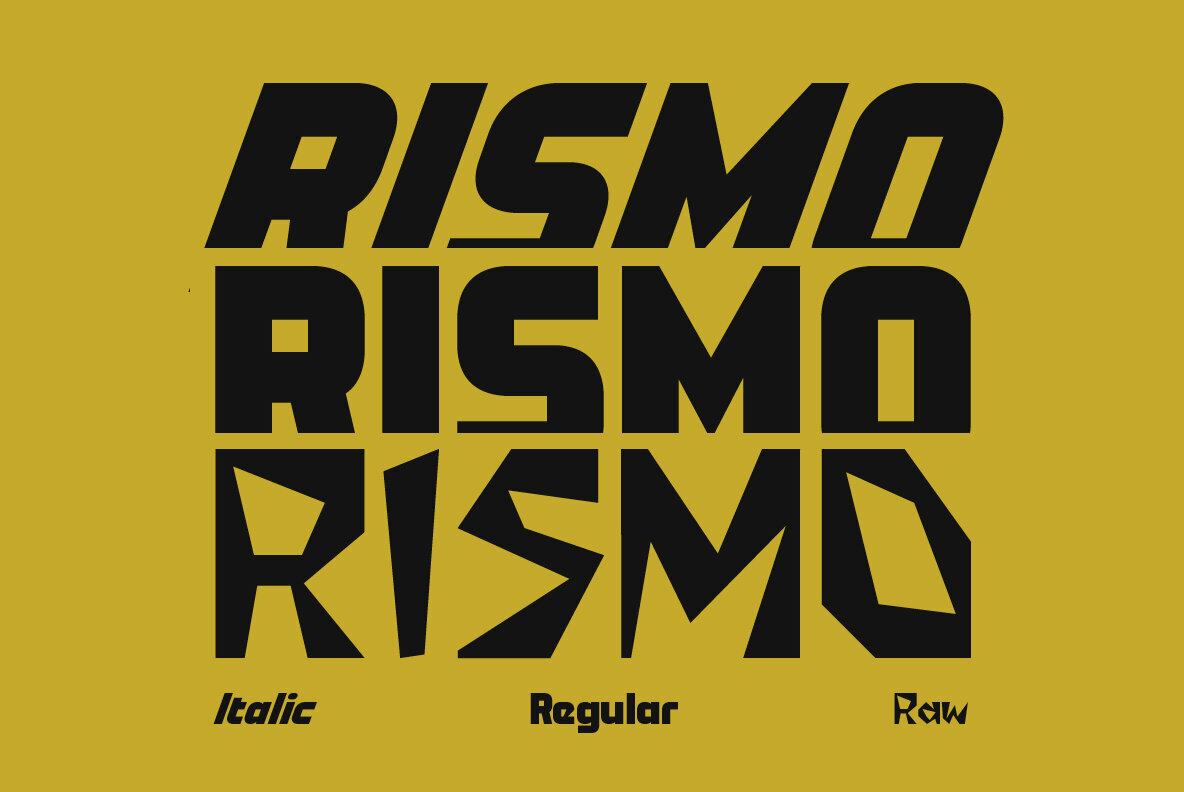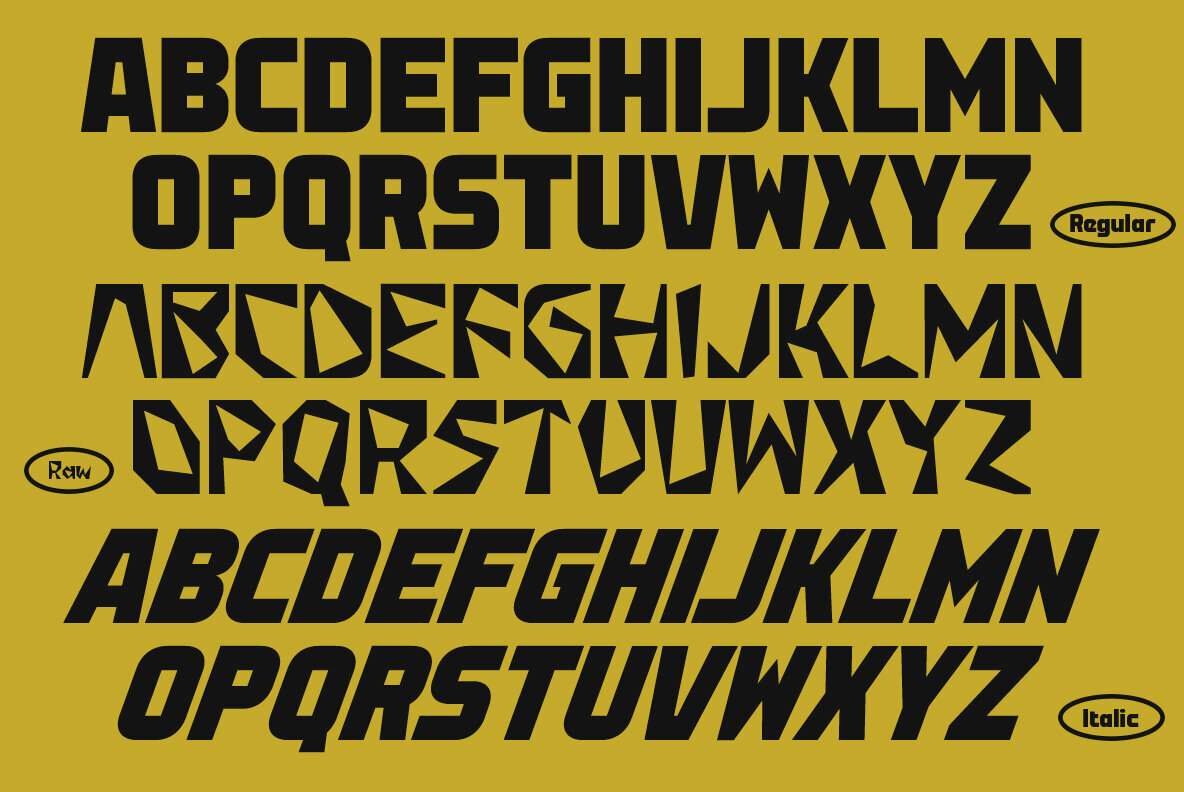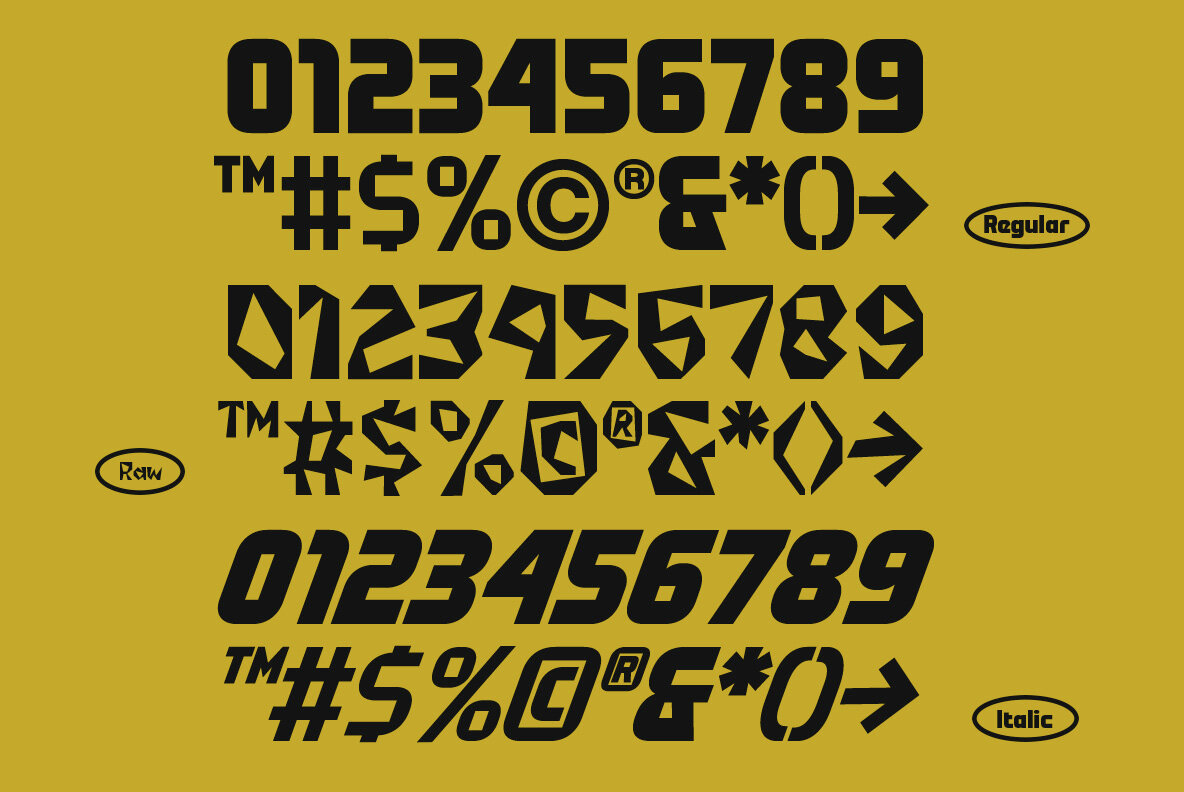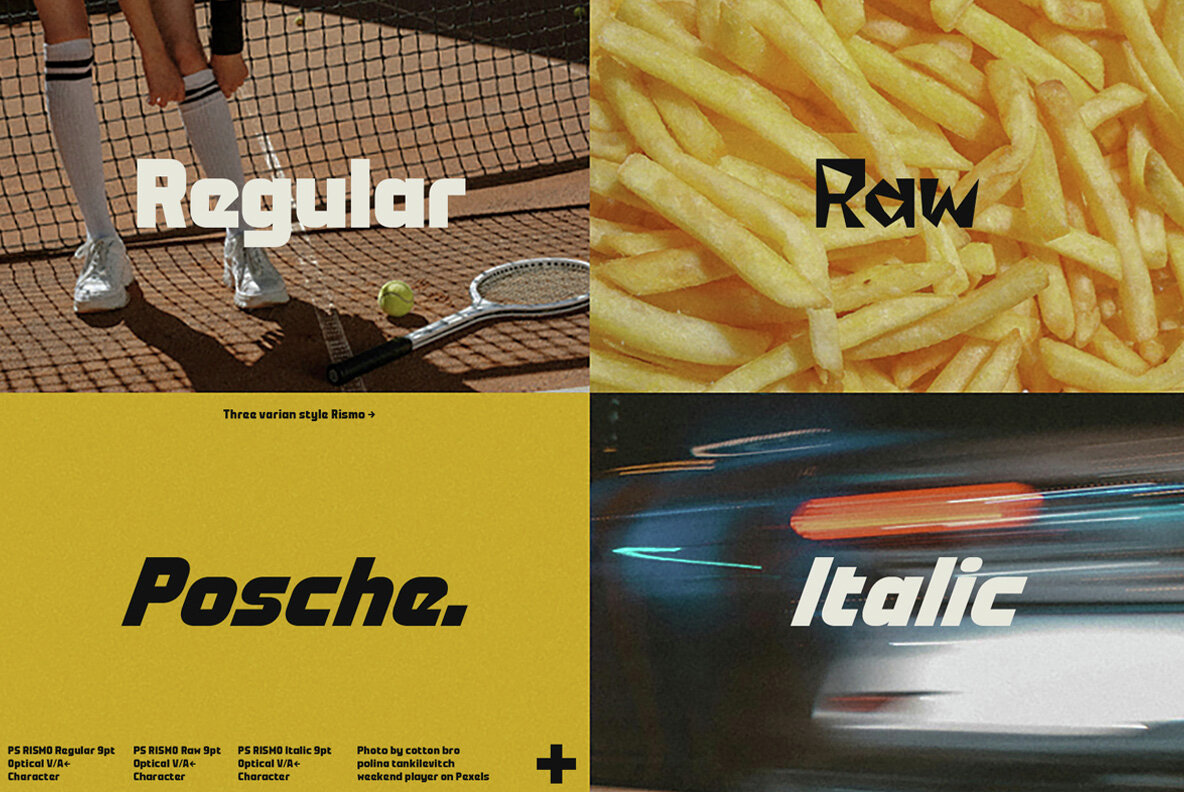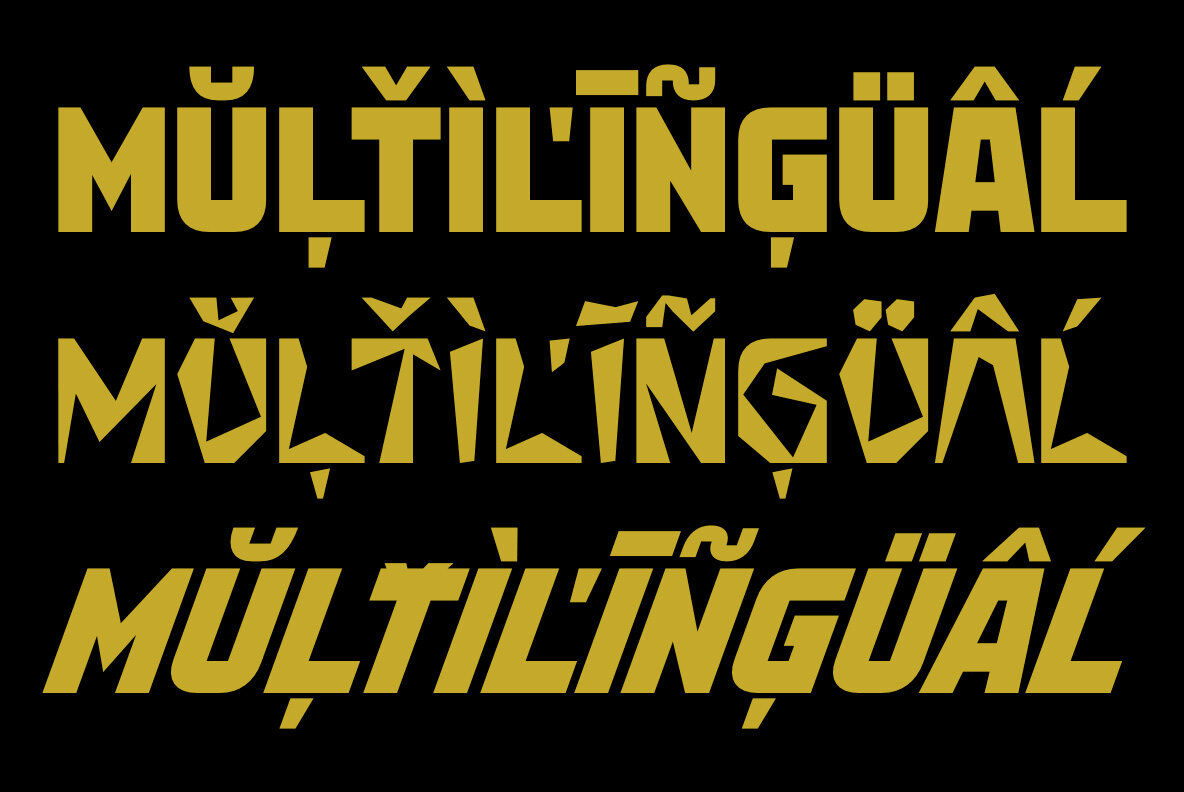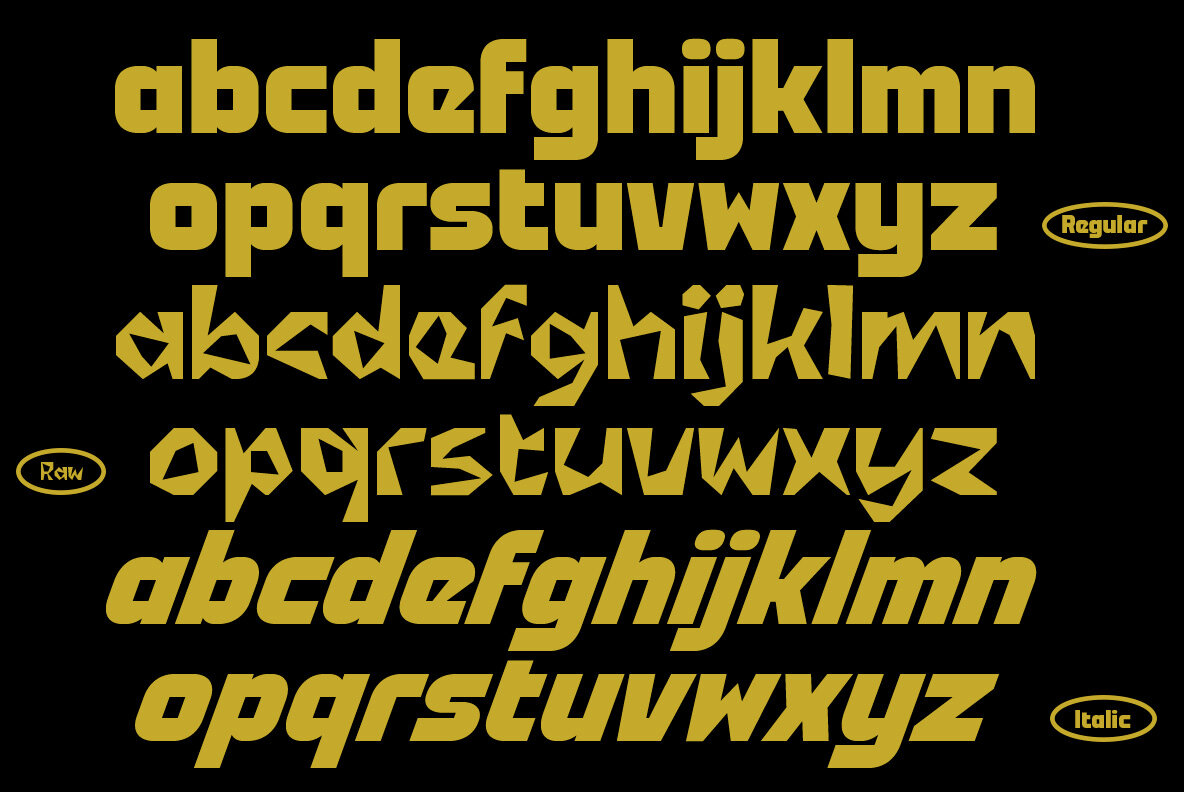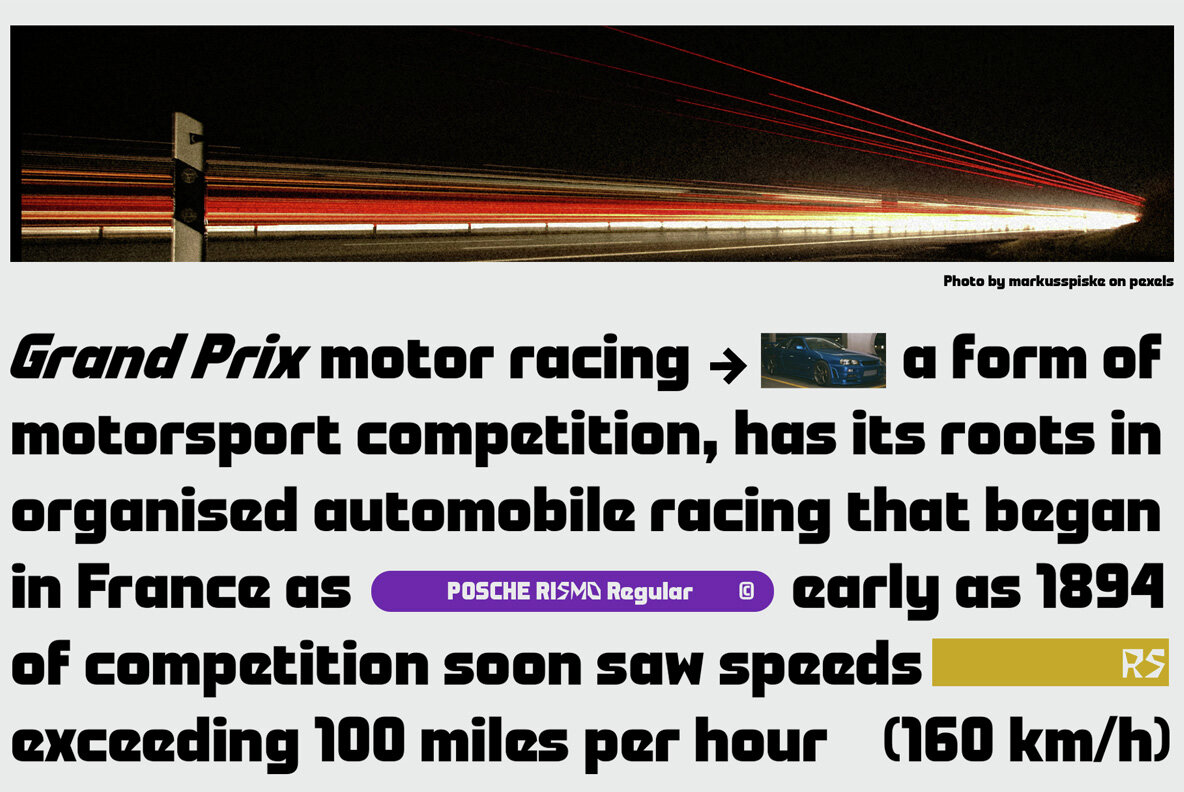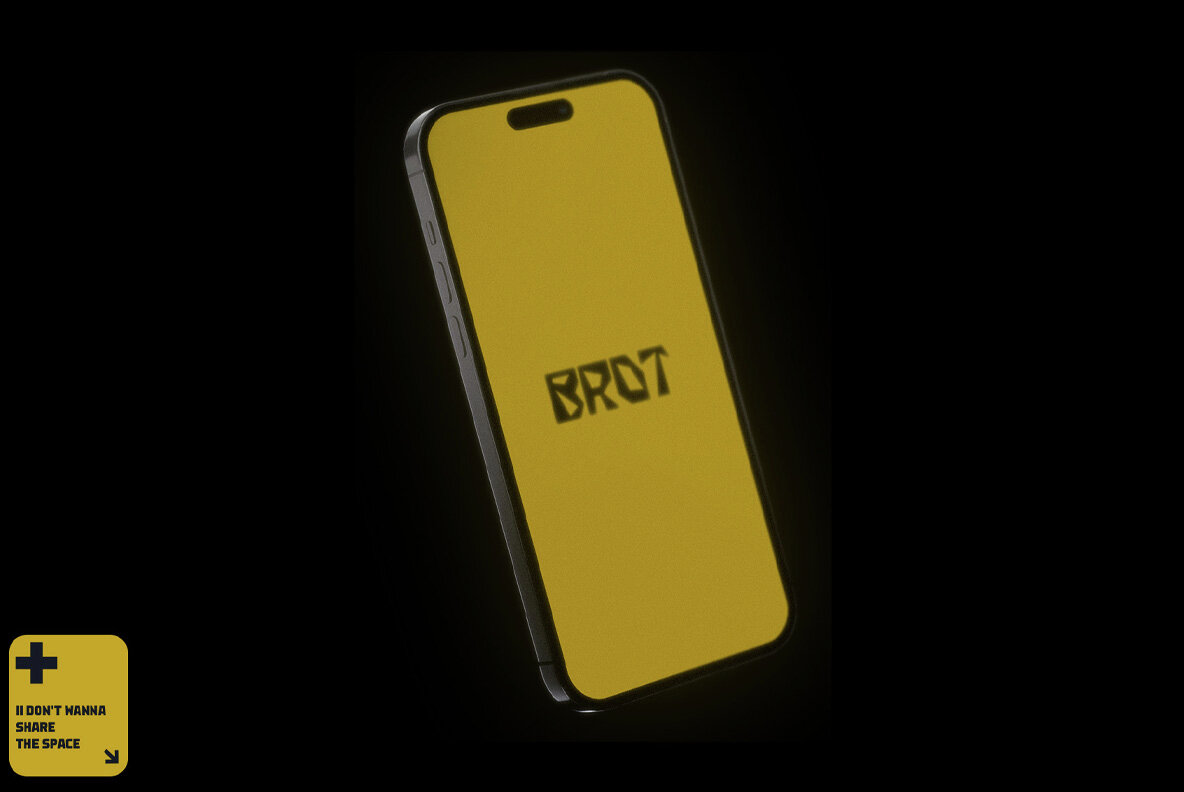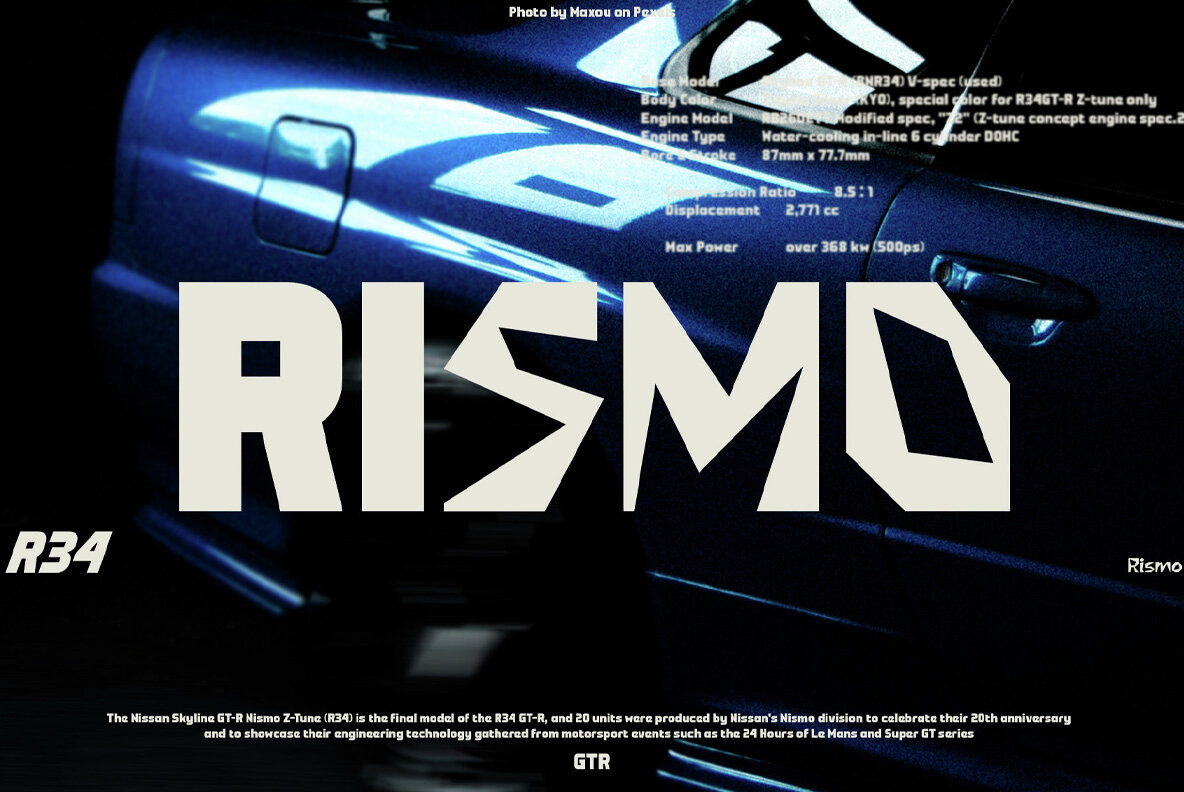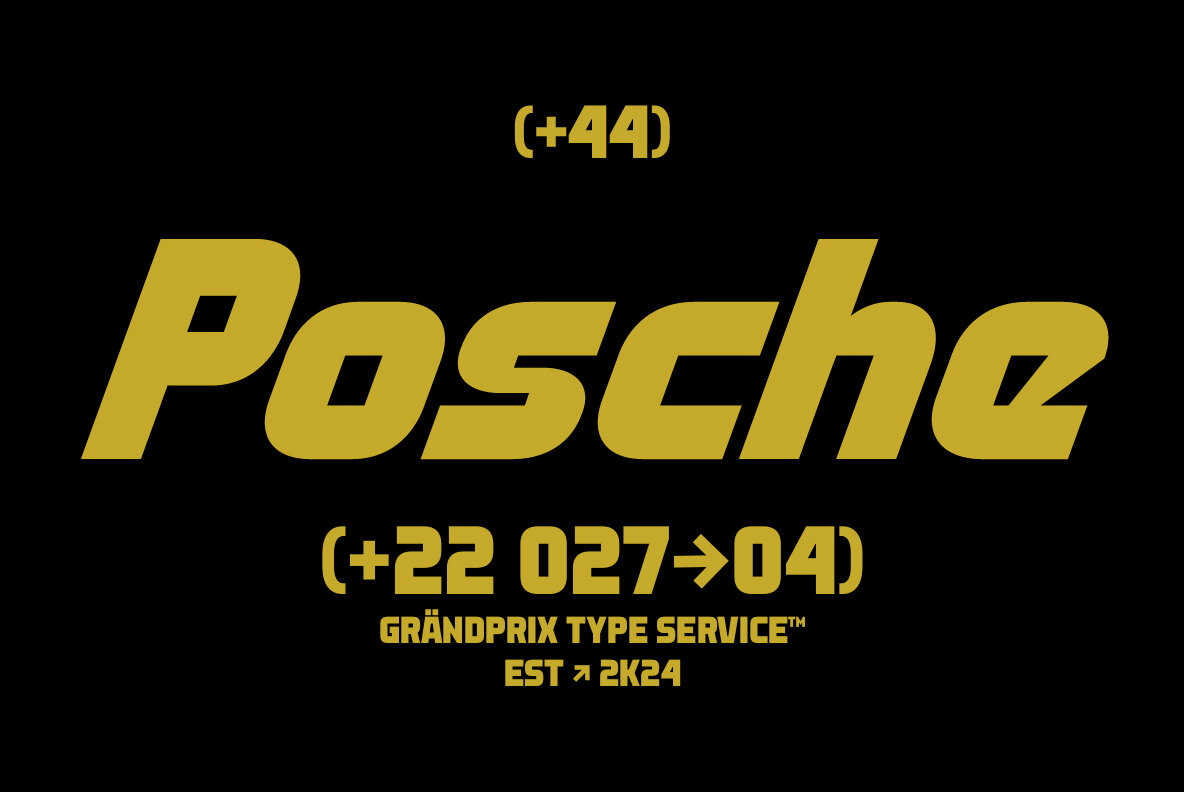
PS Rismo Font
PS RISMO Regular
PS RISMO Italic
PS RISMO Raw
PS Rismo is an energetic typeface inspired by the dynamic style of racing sports, characterized by its athletic and italic flair. Available in three distinctive variations—Regular, Italic, and Raw—this font offers versatile design possibilities. Each variation brings a unique character, allowing for creative combinations within a single layout. Ideal for headlines, titles, large-format prints, and posters, PS Rismo enhances the visual impact of your design projects.
The font’s bold and distinct styles make it perfect for a wide range of design applications, from social media graphics to promotional materials. With comprehensive language support for Latin Extended characters, PS Rismo is well-suited for Western, Central, and South Eastern European languages, making it a versatile choice for international projects.